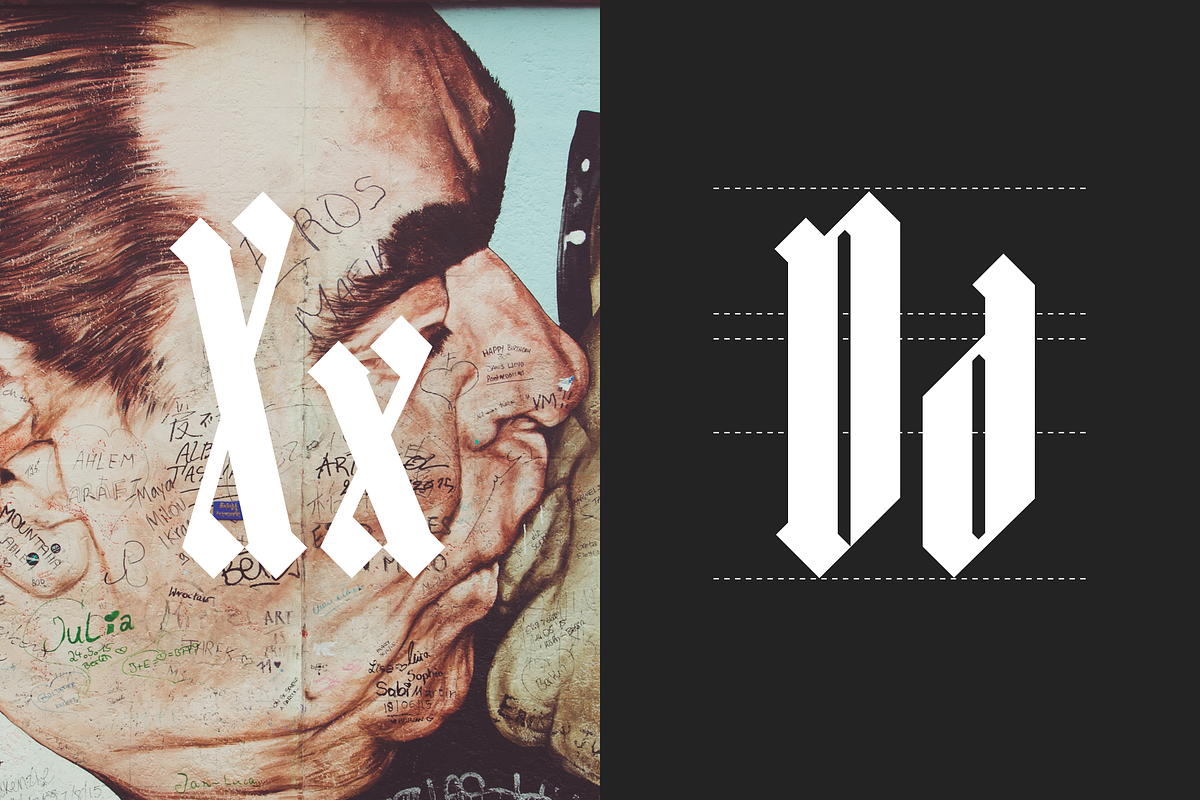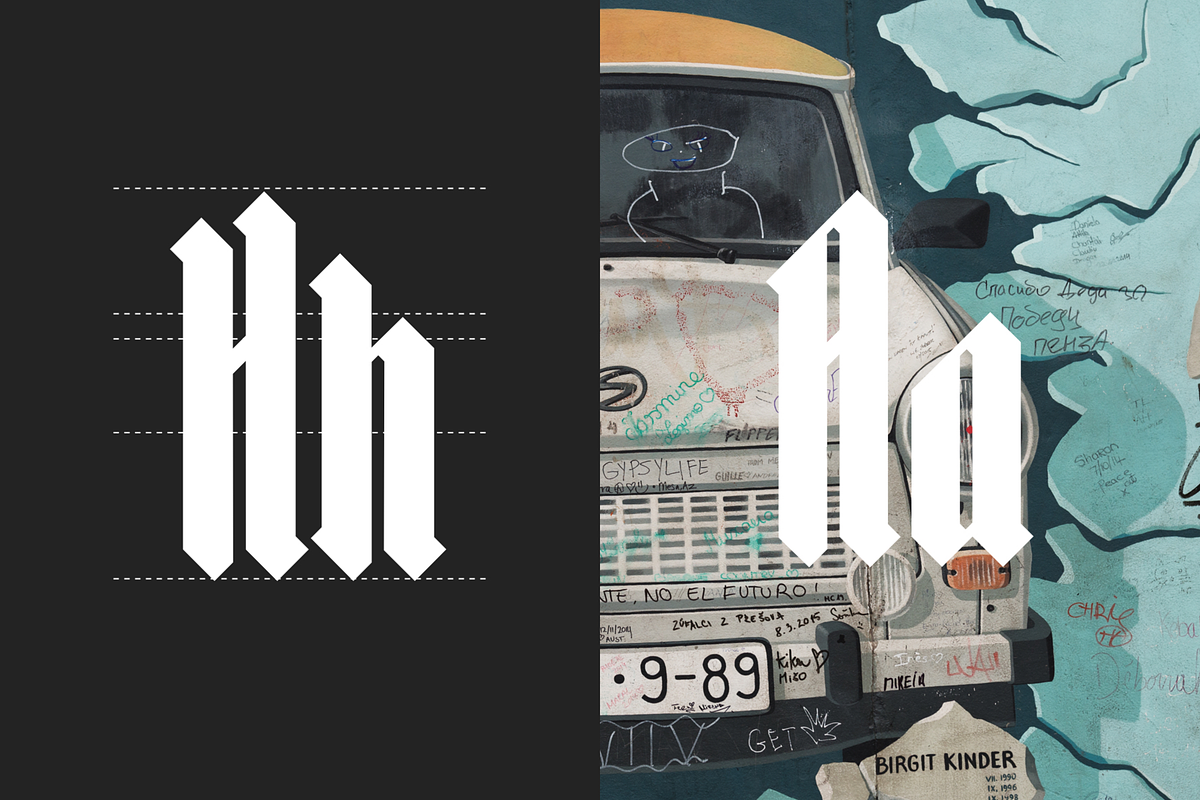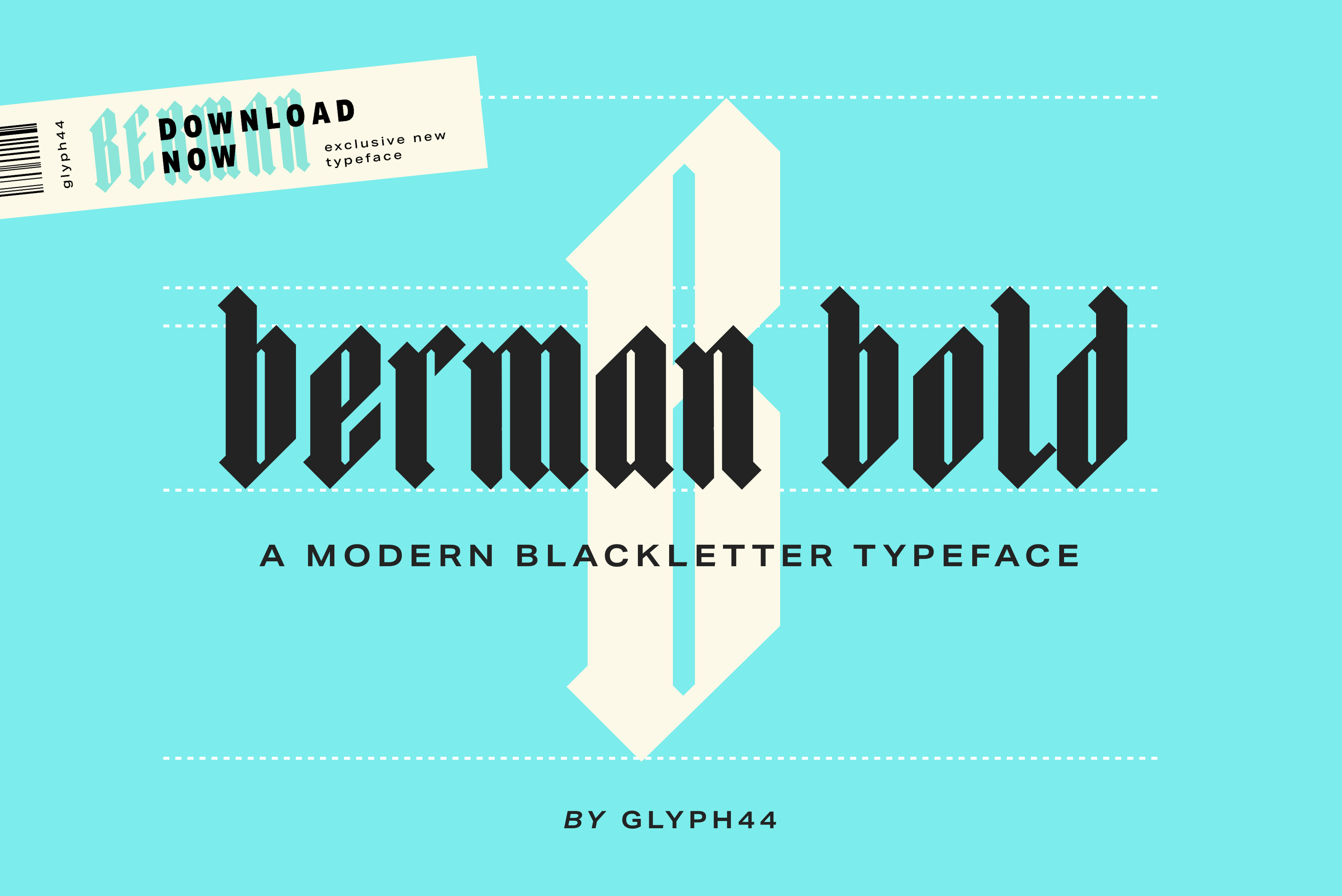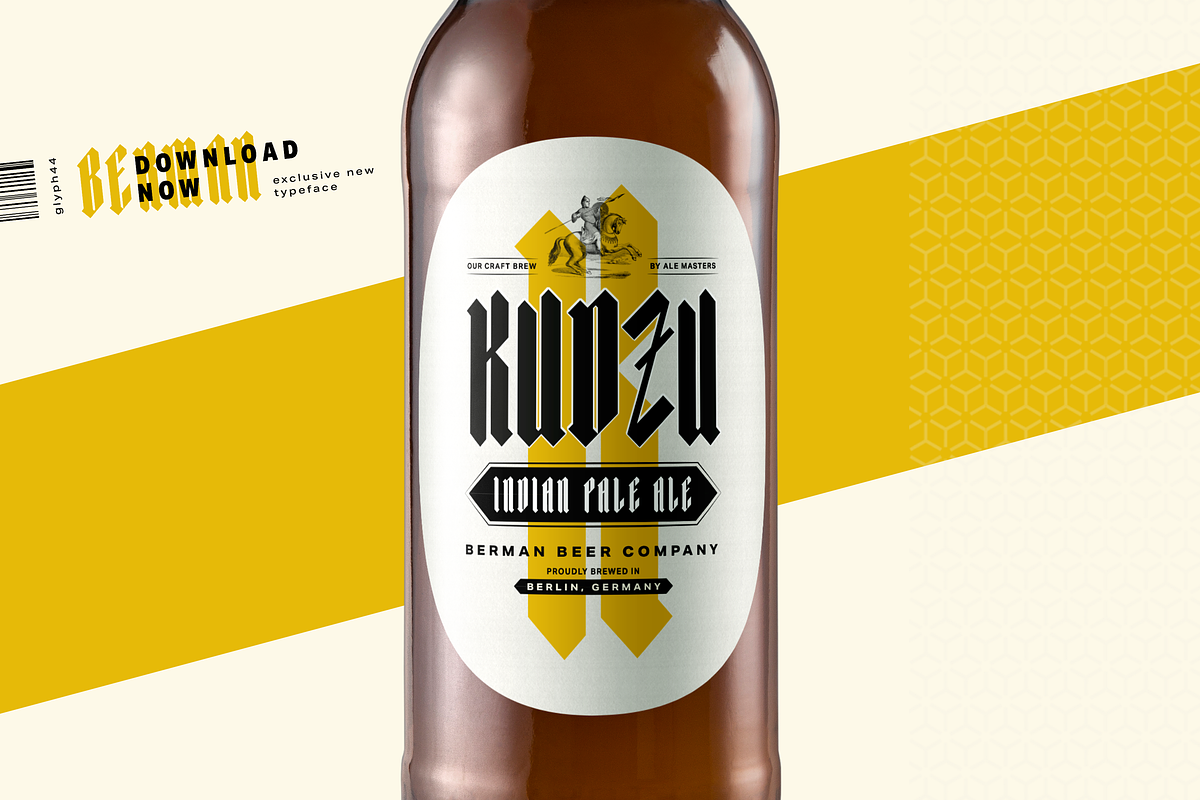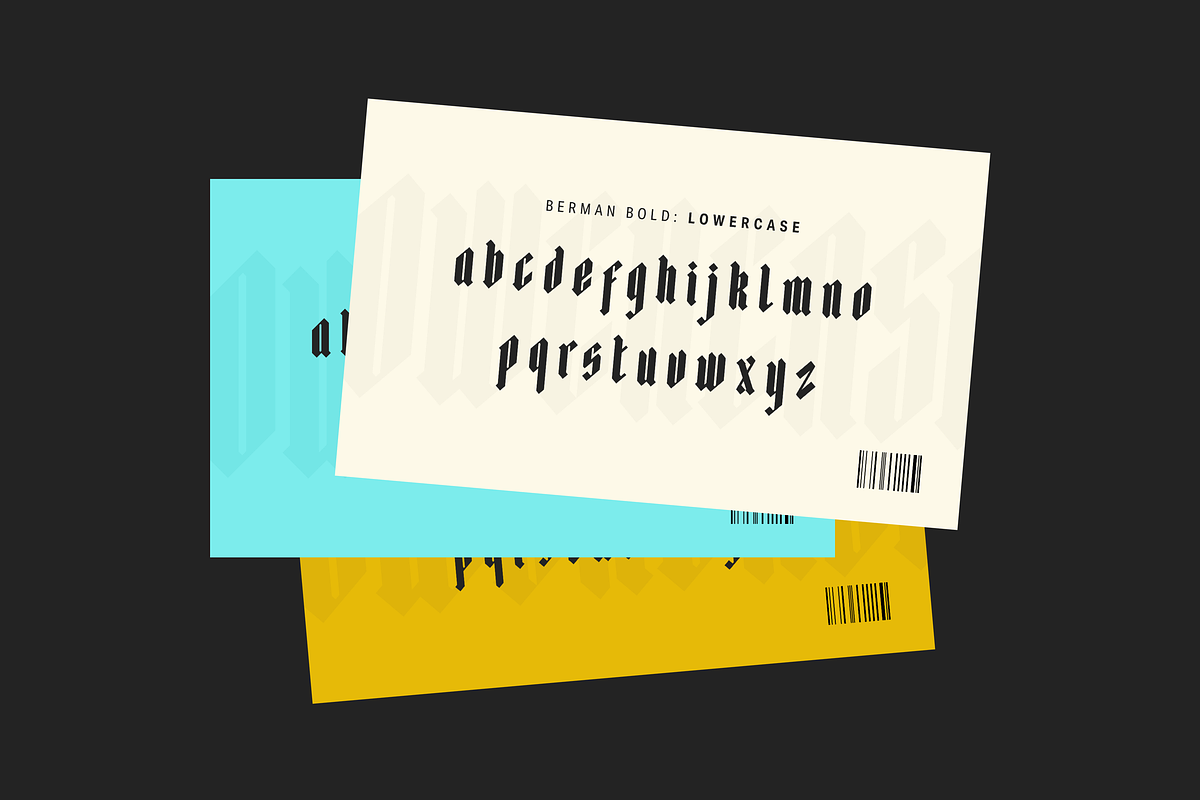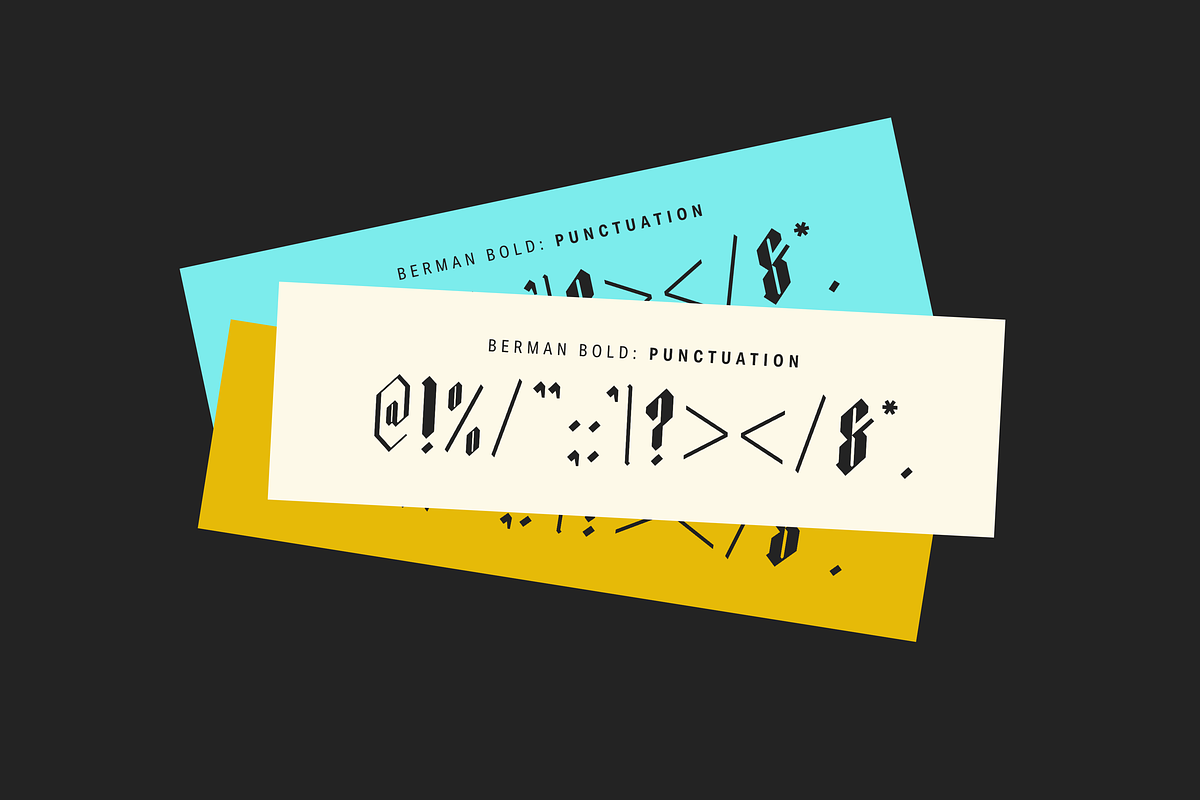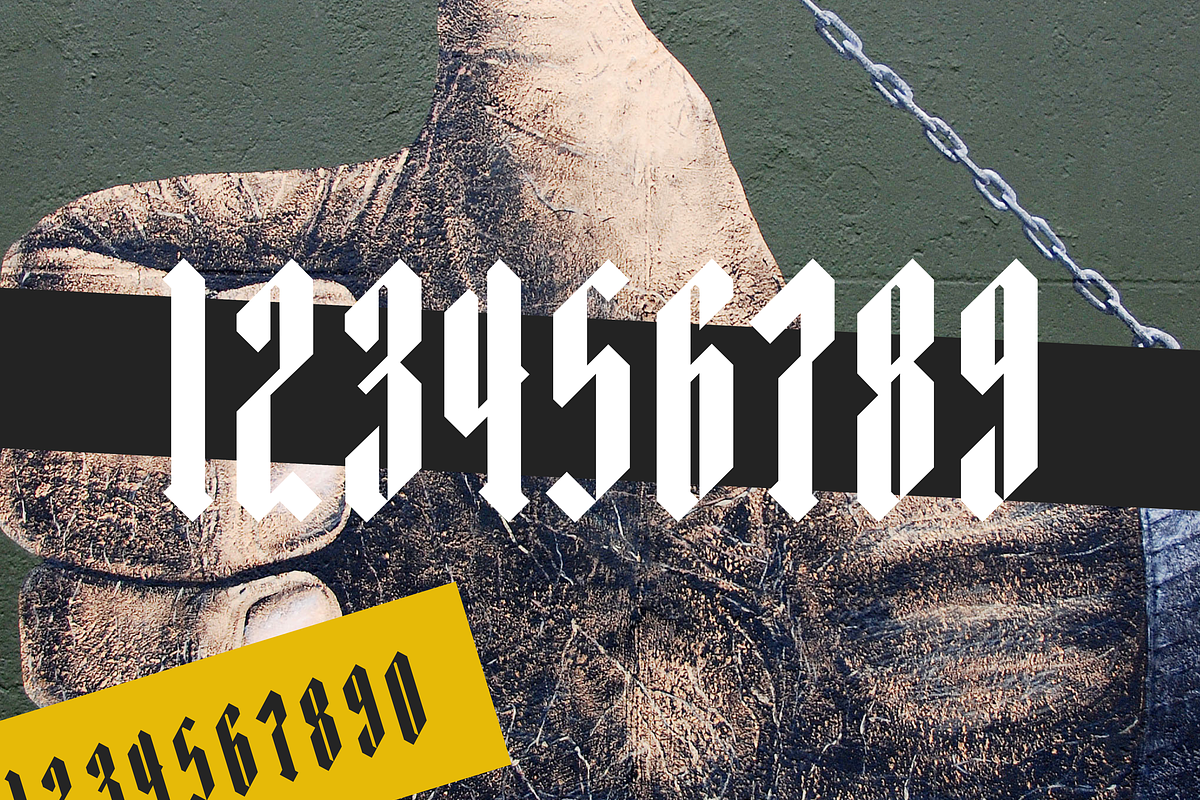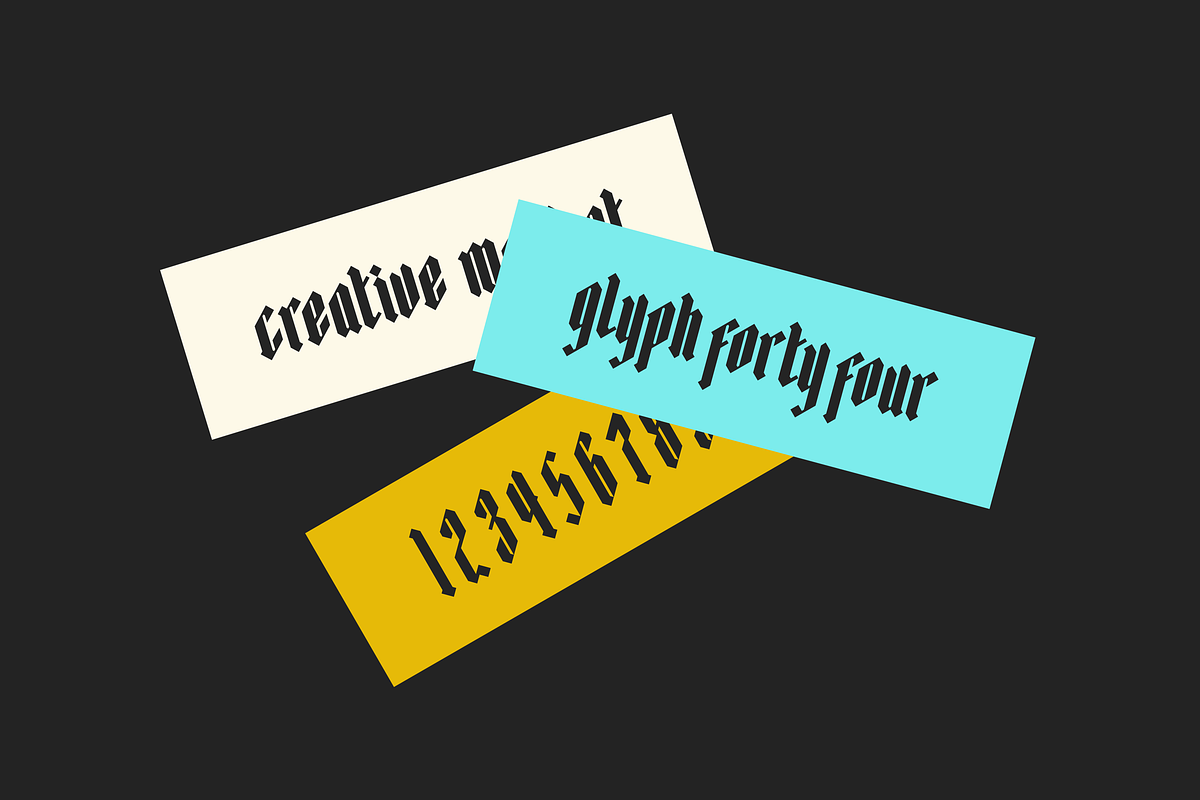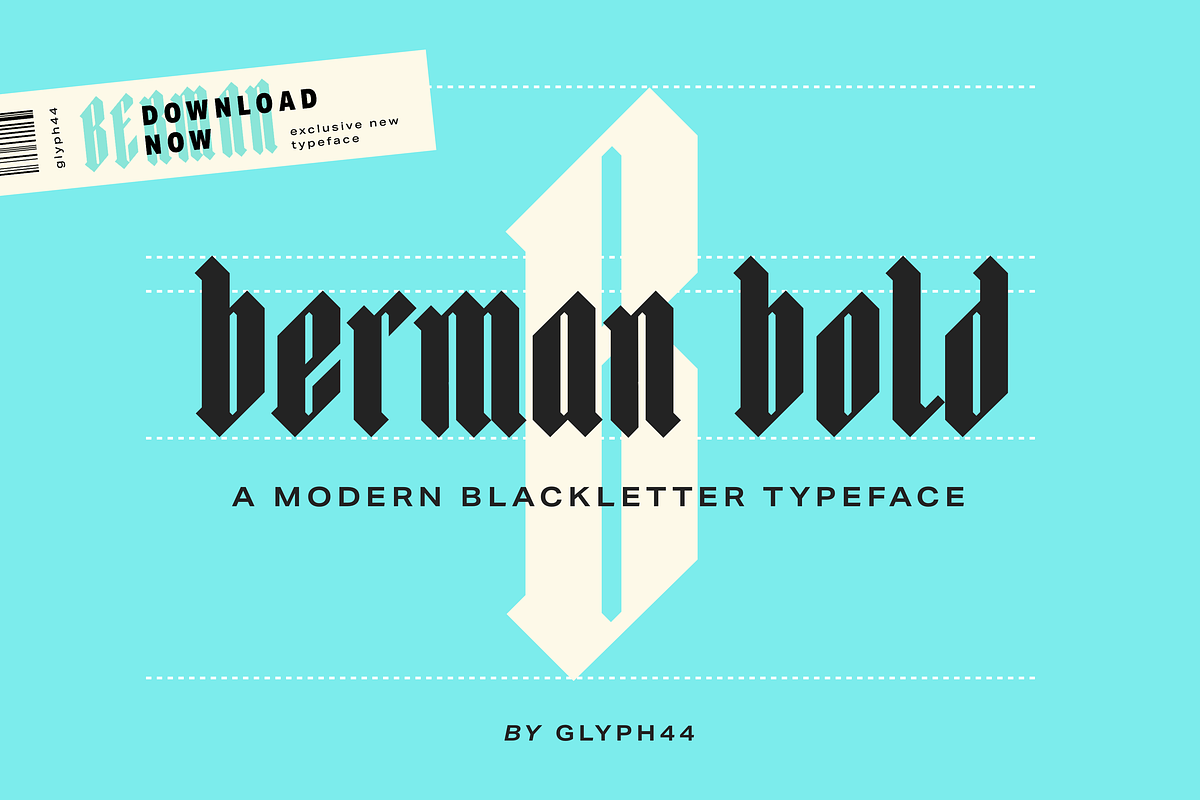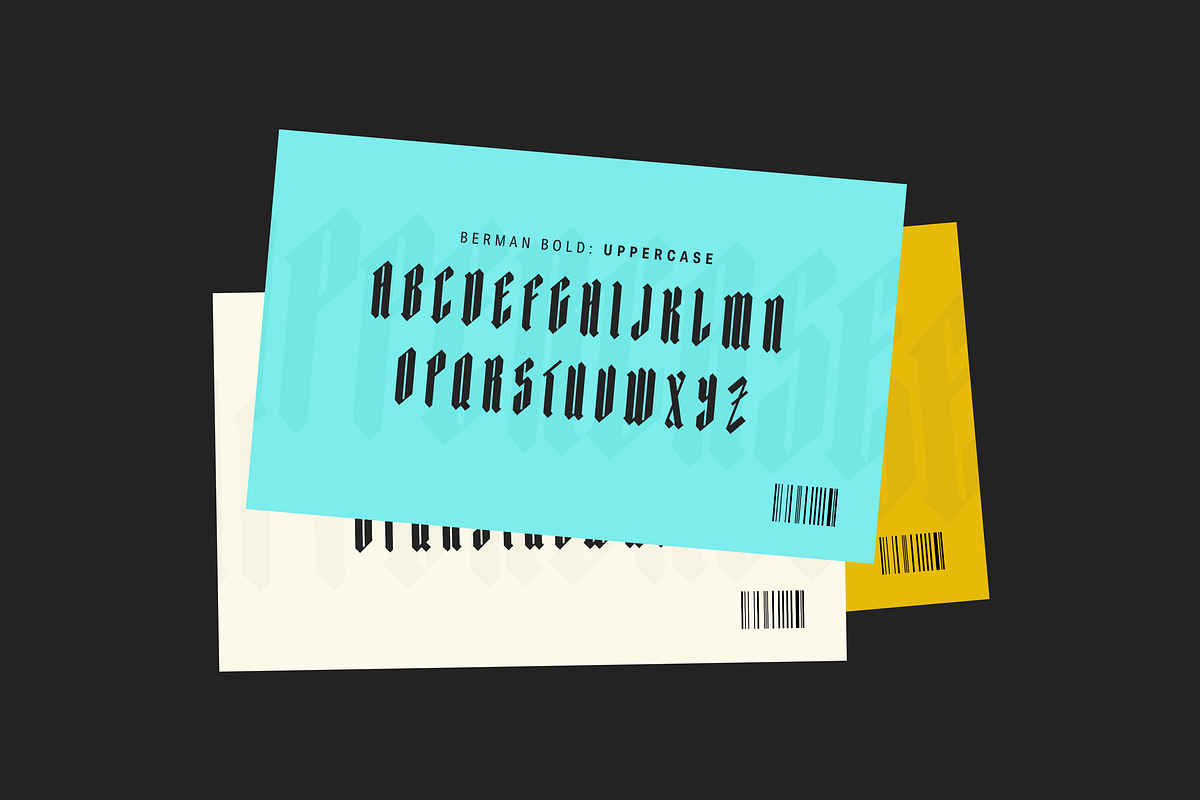
Berman Bold | Blackletter Font
BERMAN BOLD - A Modern Blackletter Typeface
BERMAN BOLD is a modern black letter font inspired by contemporary design and calls back to Old English Gothic Scriptures. It is most suited as a decorative display font for editorials or packaging design. It has a uppercase and lowercase display with over 100 unique characters, numerals & glyphs.